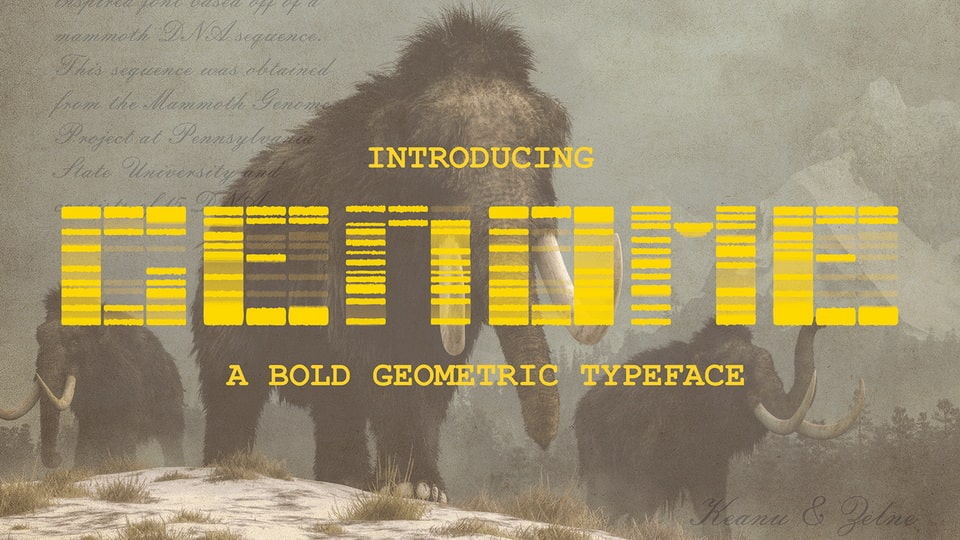
Download Genome font, a microbiology inspired typeface based on a mammoth DNA sequence. The patterns within these sequences formed the foundation for the design of each letter, which results in a font that feels both futuristic and historic.
Designer: Zelné Coetzee